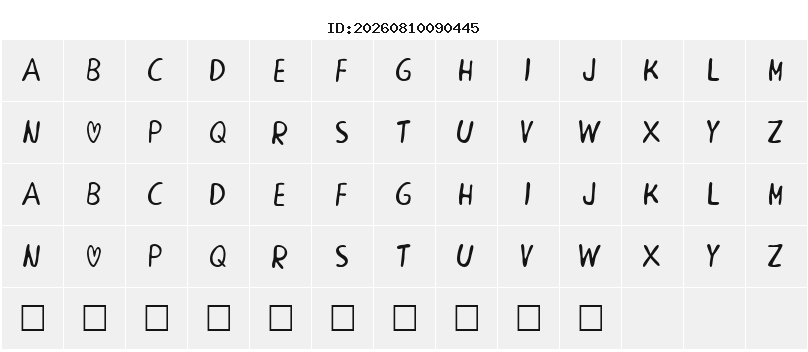
PEACECHILD Preview
• Font Name: PEACECHILD
• Font Style: BETA
• Font ID: Alts:PEACECHILD BETA
• Full Font Name: PEACECHILD BETA
• Version: BETA
• PostScript Name: PEACECHILD-BETA
• Character Count: 53
About PEACECHILD.ttf
PEACECHILD.ttf is a modern, elegant sans-serif font designed for ultimate readability and visual harmony. Perfect for branding, headlines, web design, and print materials.